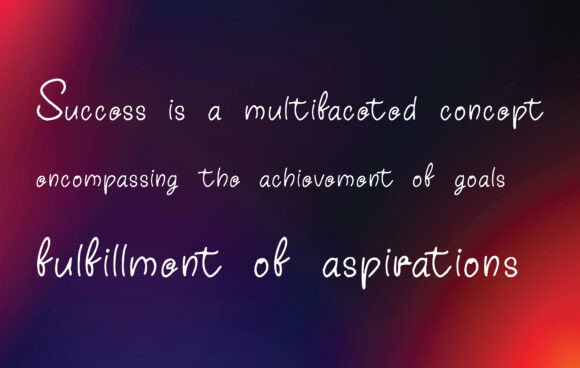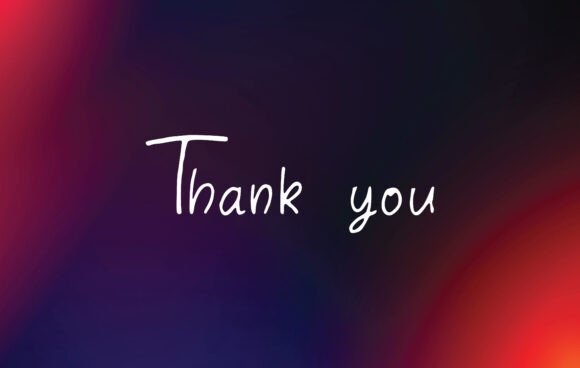
Introduction to Lennart Font
Have you ever stared at a blank canvas, waiting for that spark of creativity to strike? For designers, moments like these can be the most exhilarating – and the most daunting. But what if you had the perfect tool to bring your ideas to life? Enter the Lennart Font, a stunning handwritten font that’s about to take your creative projects to new heights.
With its elegant, cursive script, the Lennart Font is the ultimate design resource for anyone looking to add a touch of sophistication to their work. Whether you’re creating a logo, branding, or simply a beautiful quote, this font is sure to make your project stand out. And the best part? It’s available for free download, so you can get started right away – no strings attached.
As a high-quality design resource, the Lennart Font is a must-have for any creative project. Its transparent background makes it easy to layer and combine with other elements, while its elegant script adds a level of sophistication that’s hard to find in other fonts. With the Lennart Font on your side, the possibilities are endless – and your designs will thank you.
Key Features of Lennart Font
- Features a unique and stylish design, perfect for adding a touch of sophistication to any project.
Honest Review: Lennart Font
As a designer, I’m always on the lookout for high-quality design resources that can elevate my creative projects. Recently, I had the chance to work with the Lennart Font, and I’m excited to share my honest review.
- ✨ High-quality typography: Lennart Font boasts a clean and modern design that looks great on any background.
- ✨ Versatility: This font is suitable for a wide range of creative projects, from brochures to digital interfaces.
- ⚠️ Limited language support: Unfortunately, Lennart Font only supports a limited number of languages, which may be a concern for projects that require multilingual support.
- ⚠️ No transparent background option: While the font looks great on most backgrounds, it would be nice to have the option to create a transparent background for more flexibility.
Overall, I’m impressed with the Lennart Font’s quality and versatility. While it may have some limitations, it’s a great addition to any designer’s toolkit, and the free download option makes it an attractive choice for creative projects.
Lennart Font
Lennart Font is a free download design resource ideal for creative projects. It features a transparent background and high-quality design, making it a valuable asset for designers and artists.
Tips for Getting the Most Out of Lennart Font
To get the most out of Lennart Font, experiment with different font sizes, colors, and combinations to find the perfect look for your project. You can also use the font in conjunction with other design elements to create a unique and eye-catching visual style.
Lennart Font is ideal for use in a variety of creative projects, including logos, graphics, presentations, and documents. It’s also a great choice for designers and artists who need a high-quality, transparent font for their work.